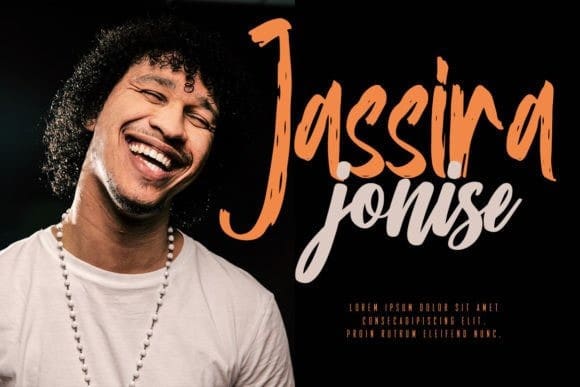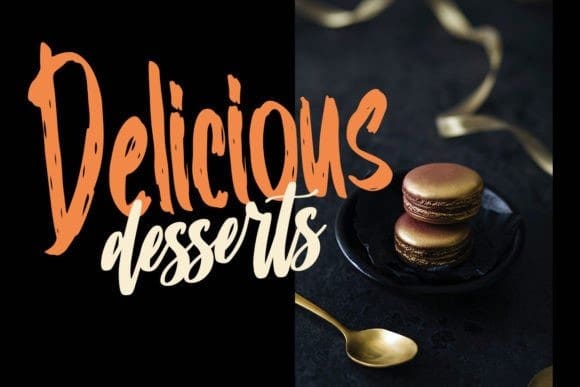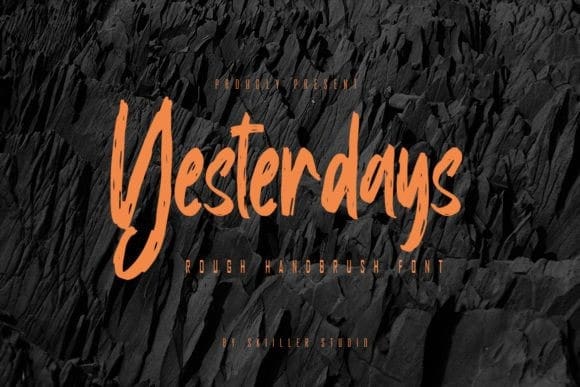
Yesterdays Brush Font
Yesterdays Brush Font is a dry hand-brushed font, designed to combine perfectly and allows you to create stunning handwriting quickly and easily. Ideal for logos, handwritten quotes, product packaging, headers, posters, merchandise, social media & greeting cards.